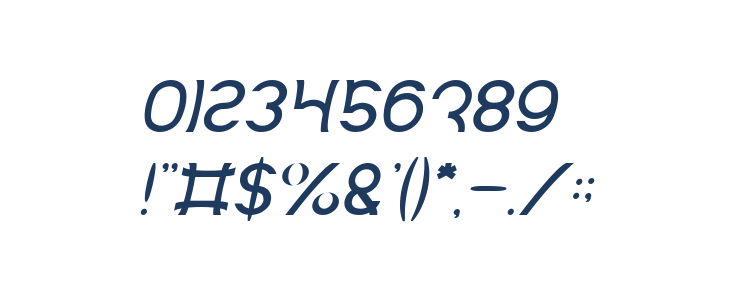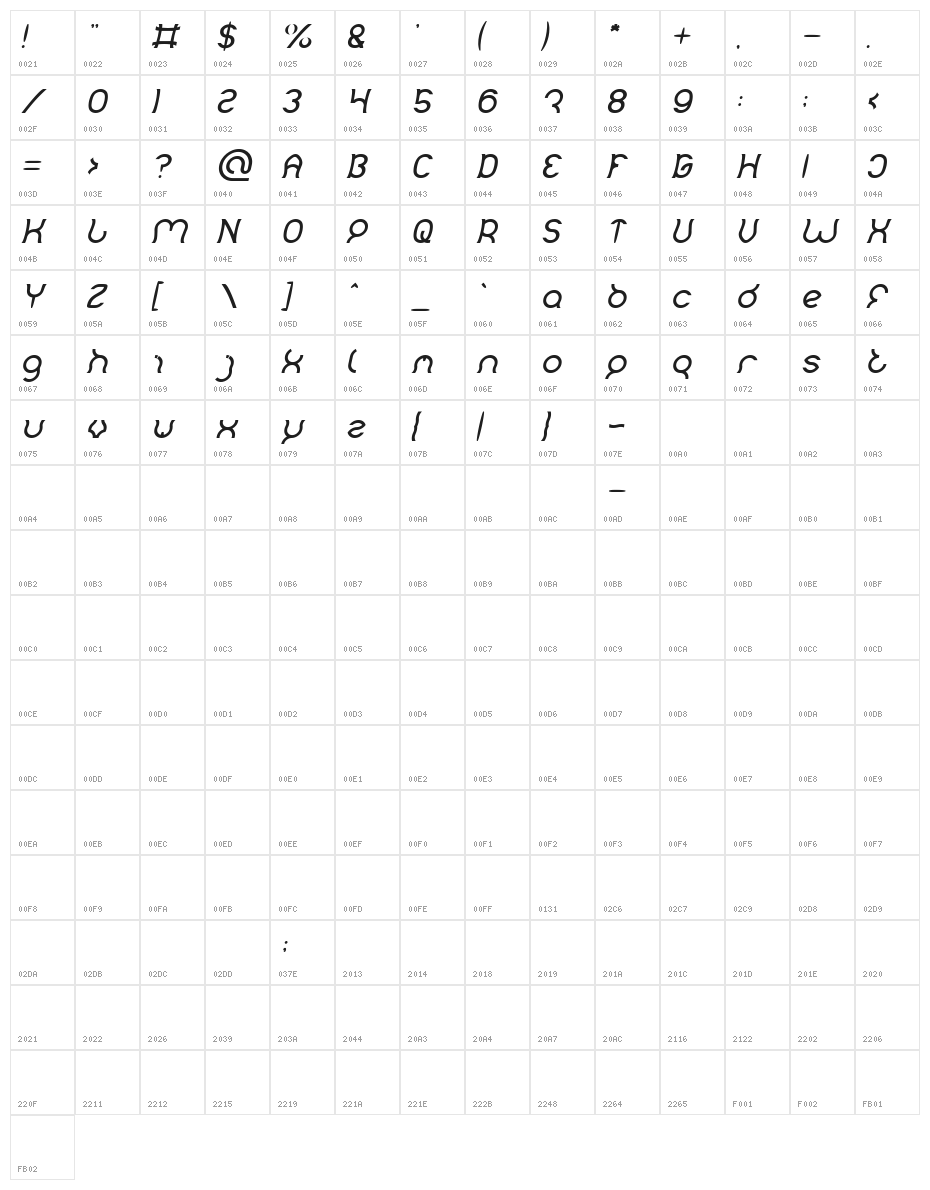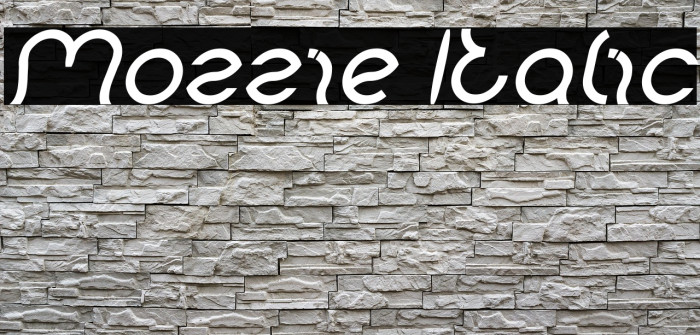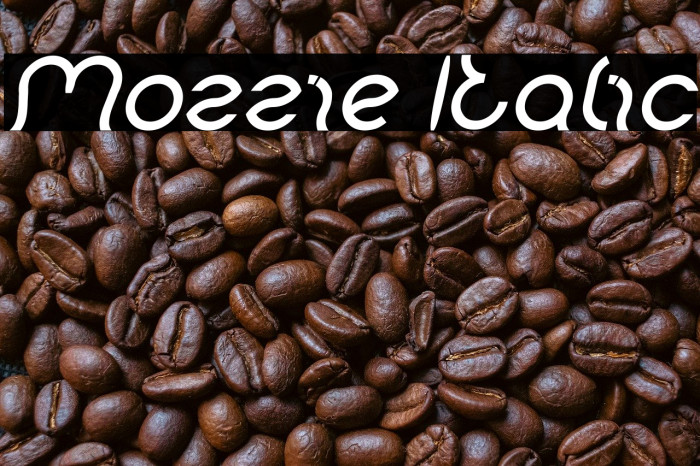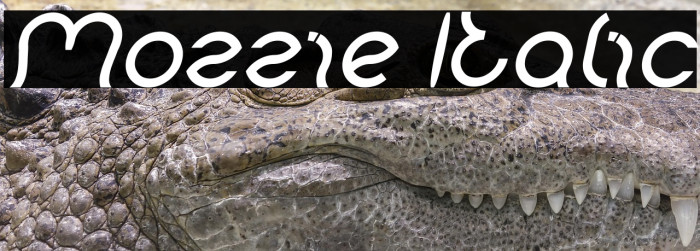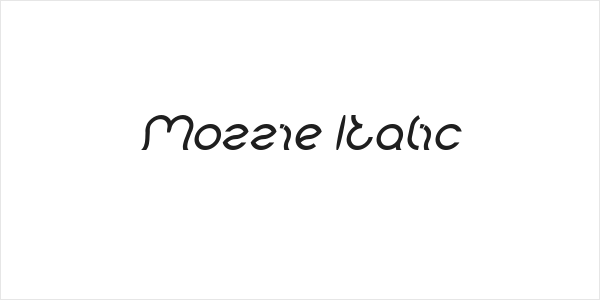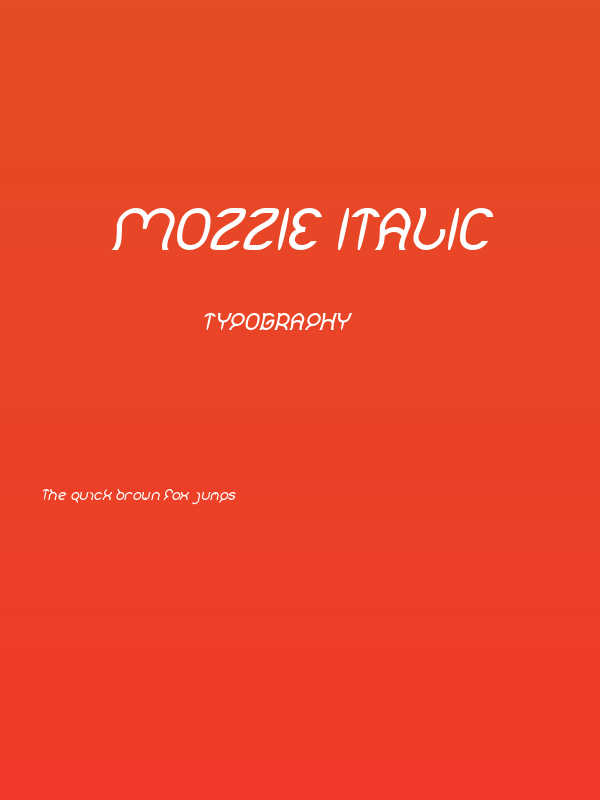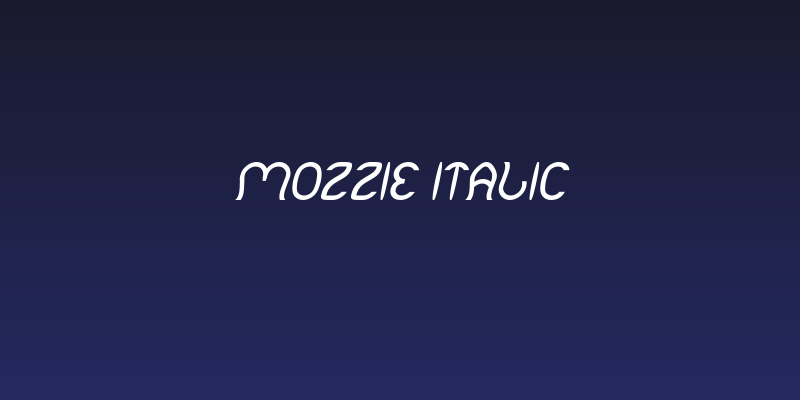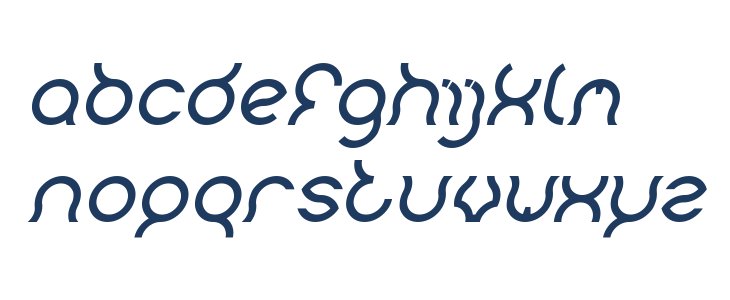
Mozzie Italic Font
Mozzie Italic Description
This font features a dynamic and playful italic style with a modern twist. The characters are bold and slightly condensed, giving them a strong presence on the page. The strokes are smooth and fluid, with a consistent medium contrast that adds to the font's readability. The uppercase letters have a distinctive flair, while the lowercase letters maintain a cohesive flow. The numerals are clear and well-defined, making them suitable for various applications. Special characters are included, enhancing the font's versatility for creative projects.